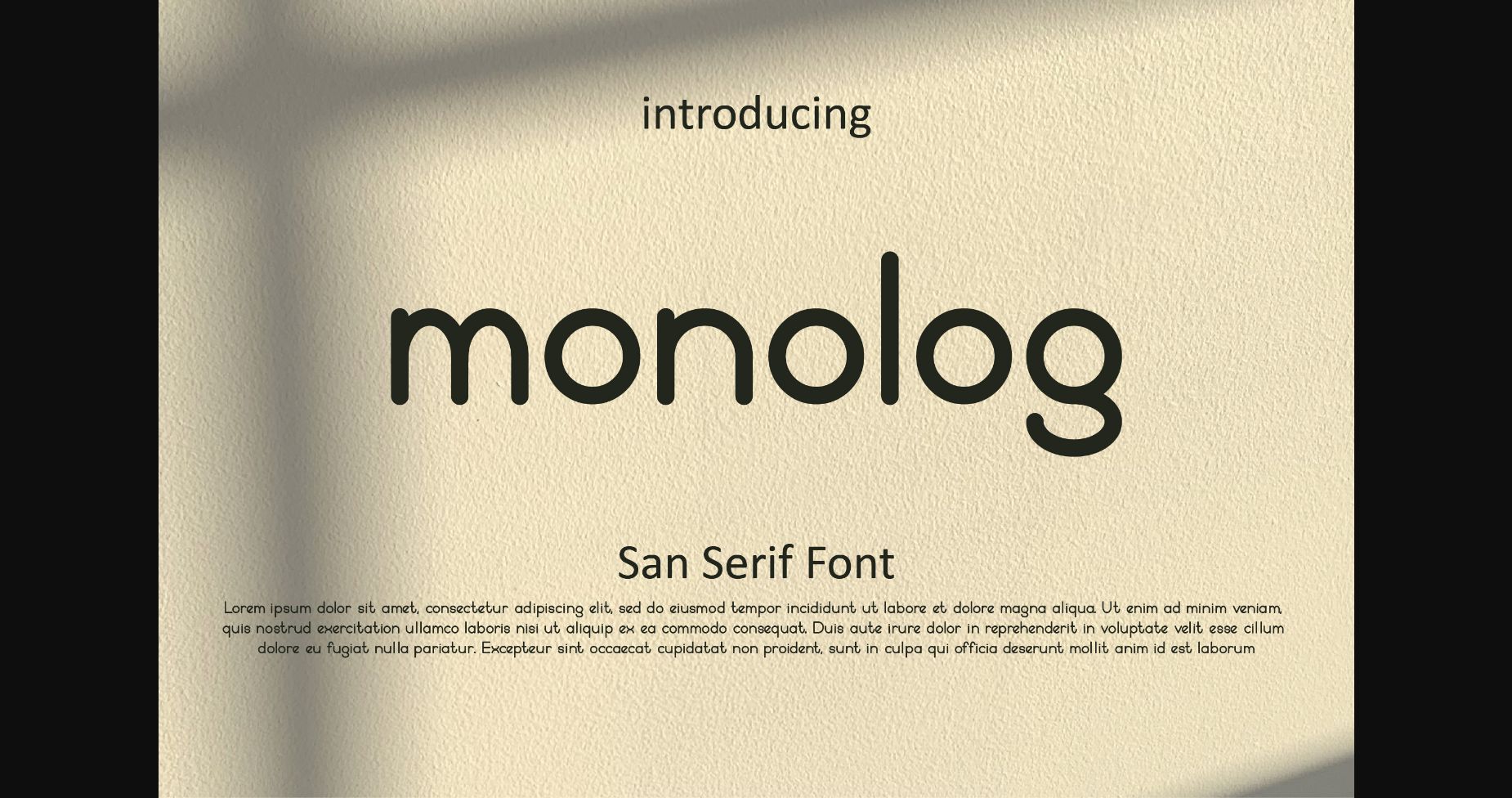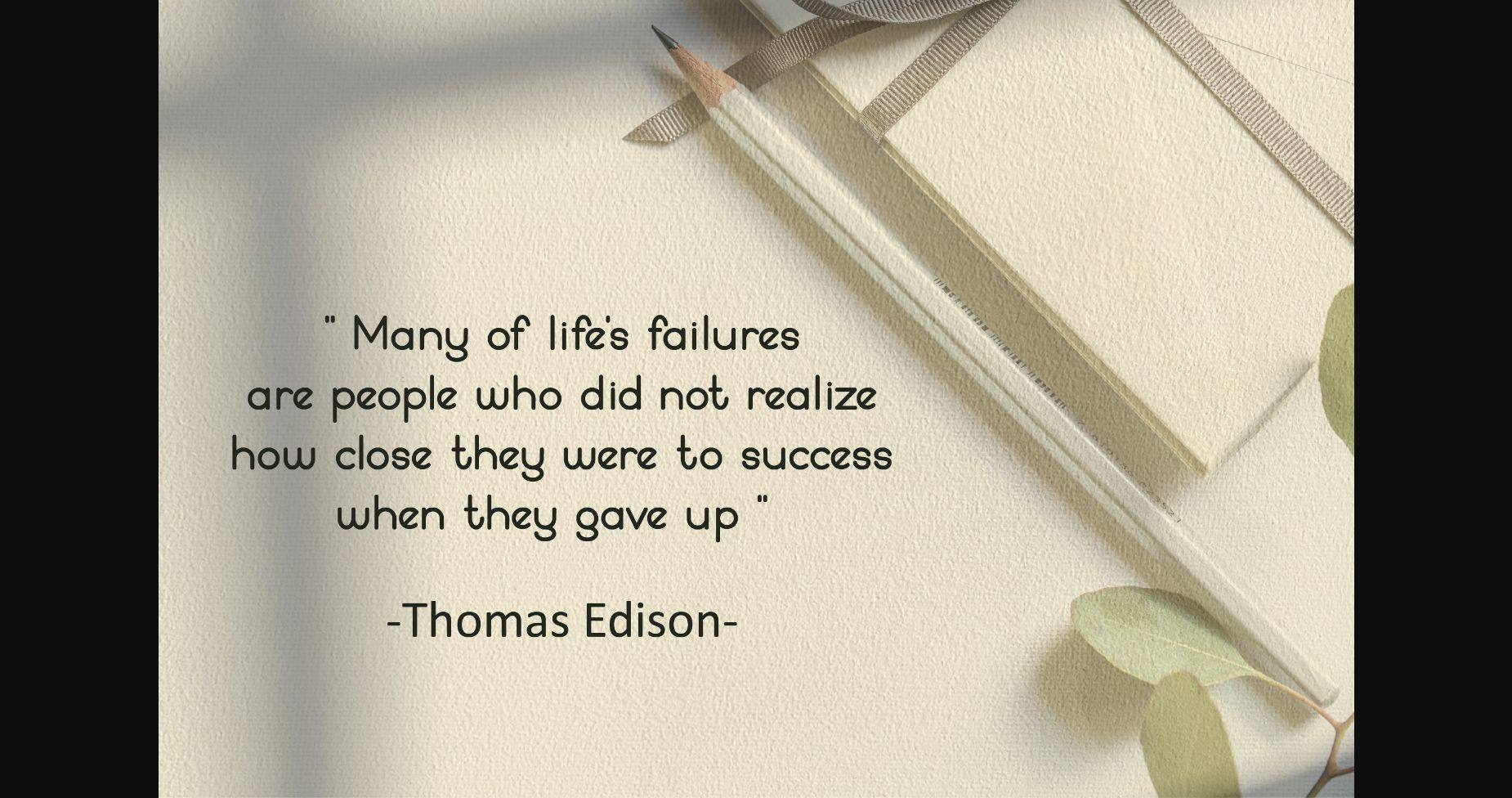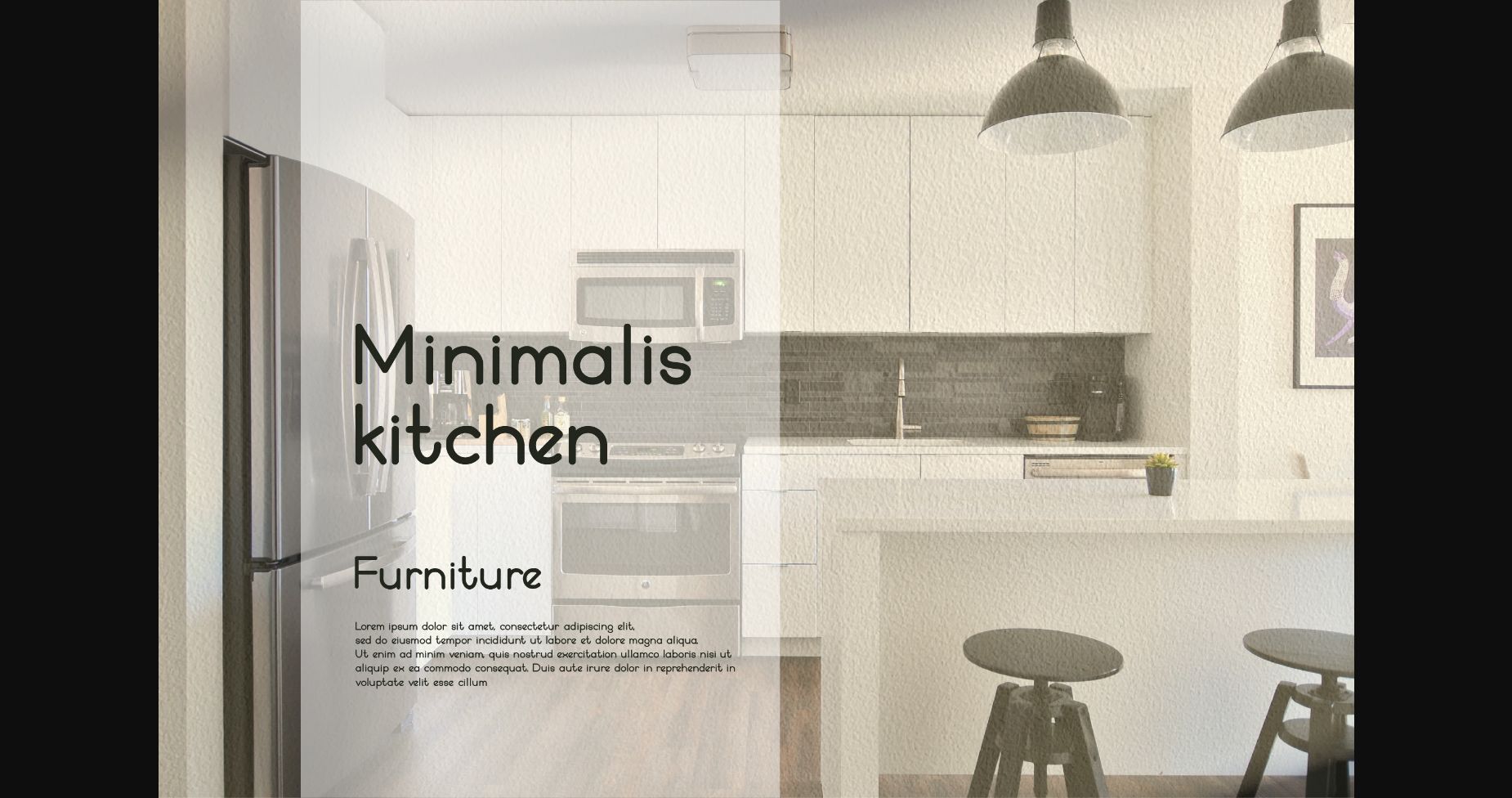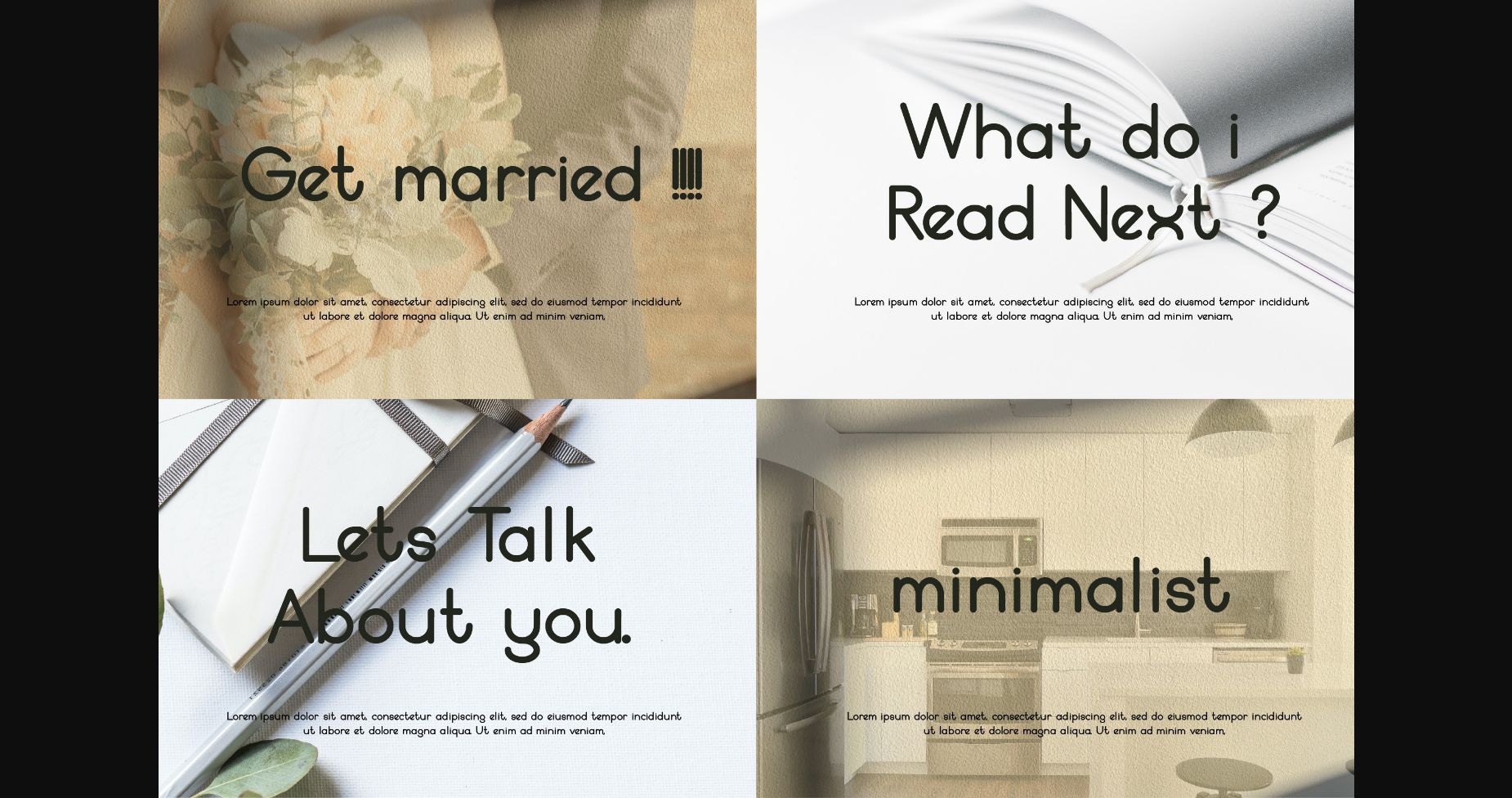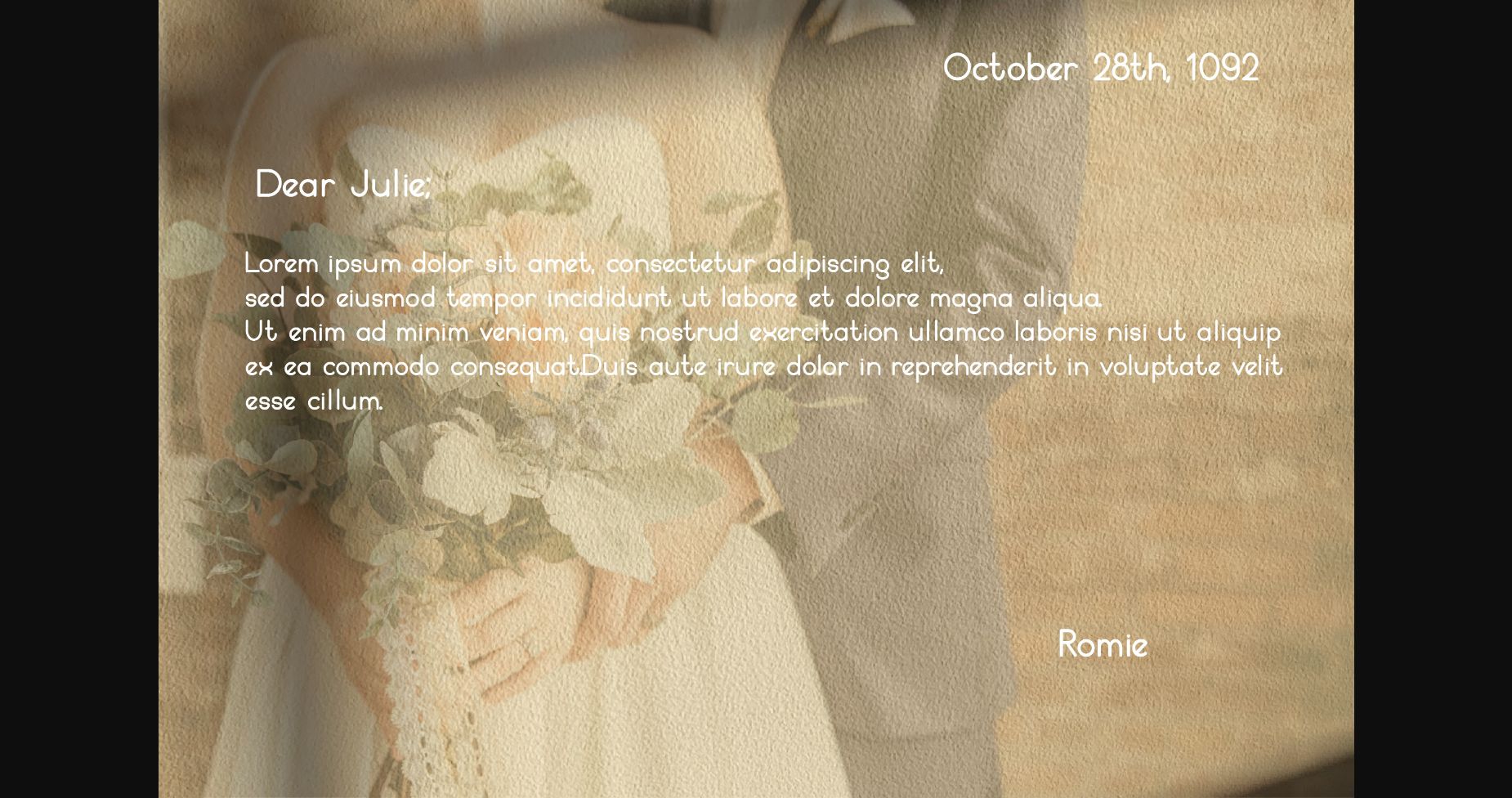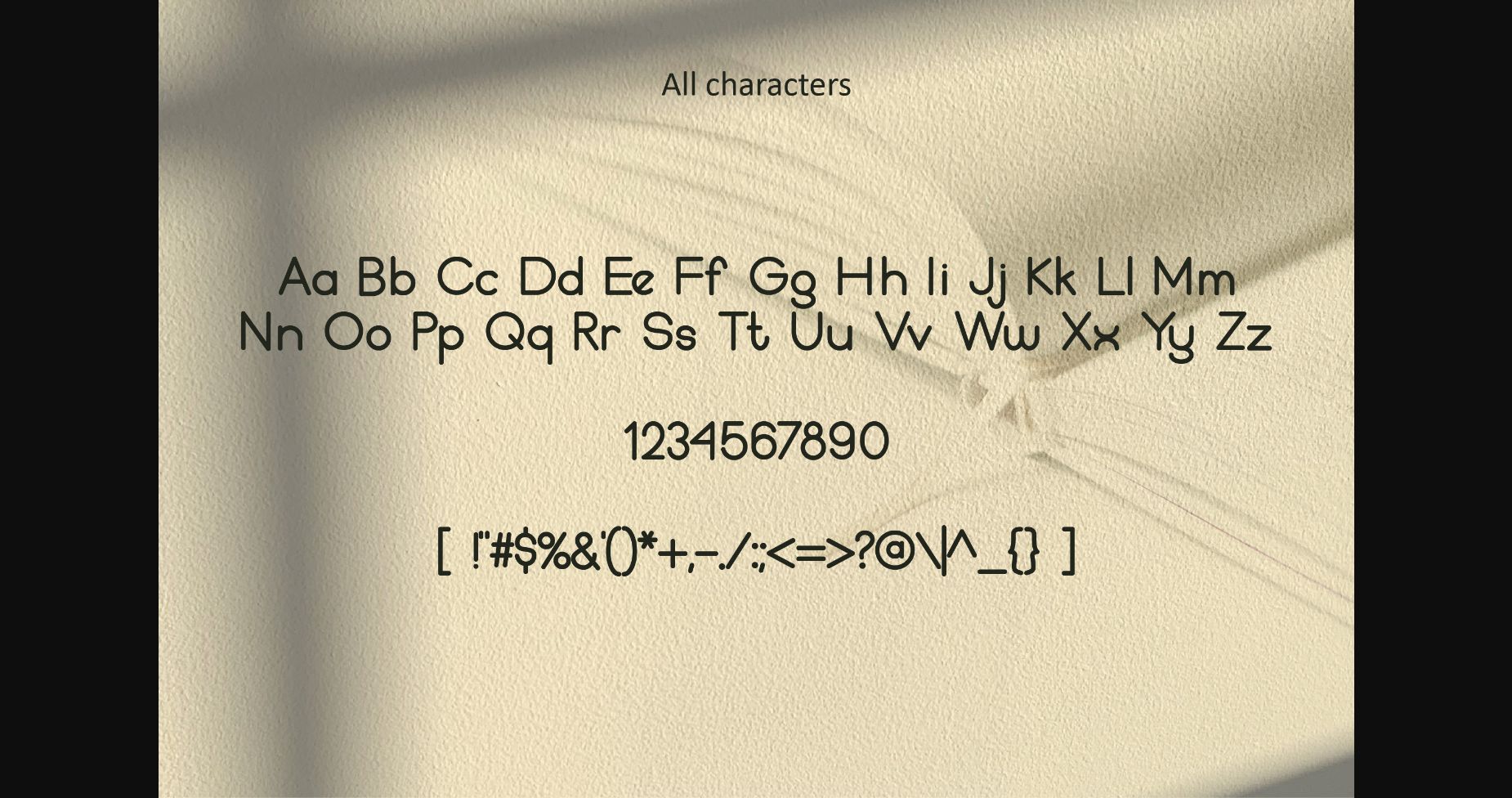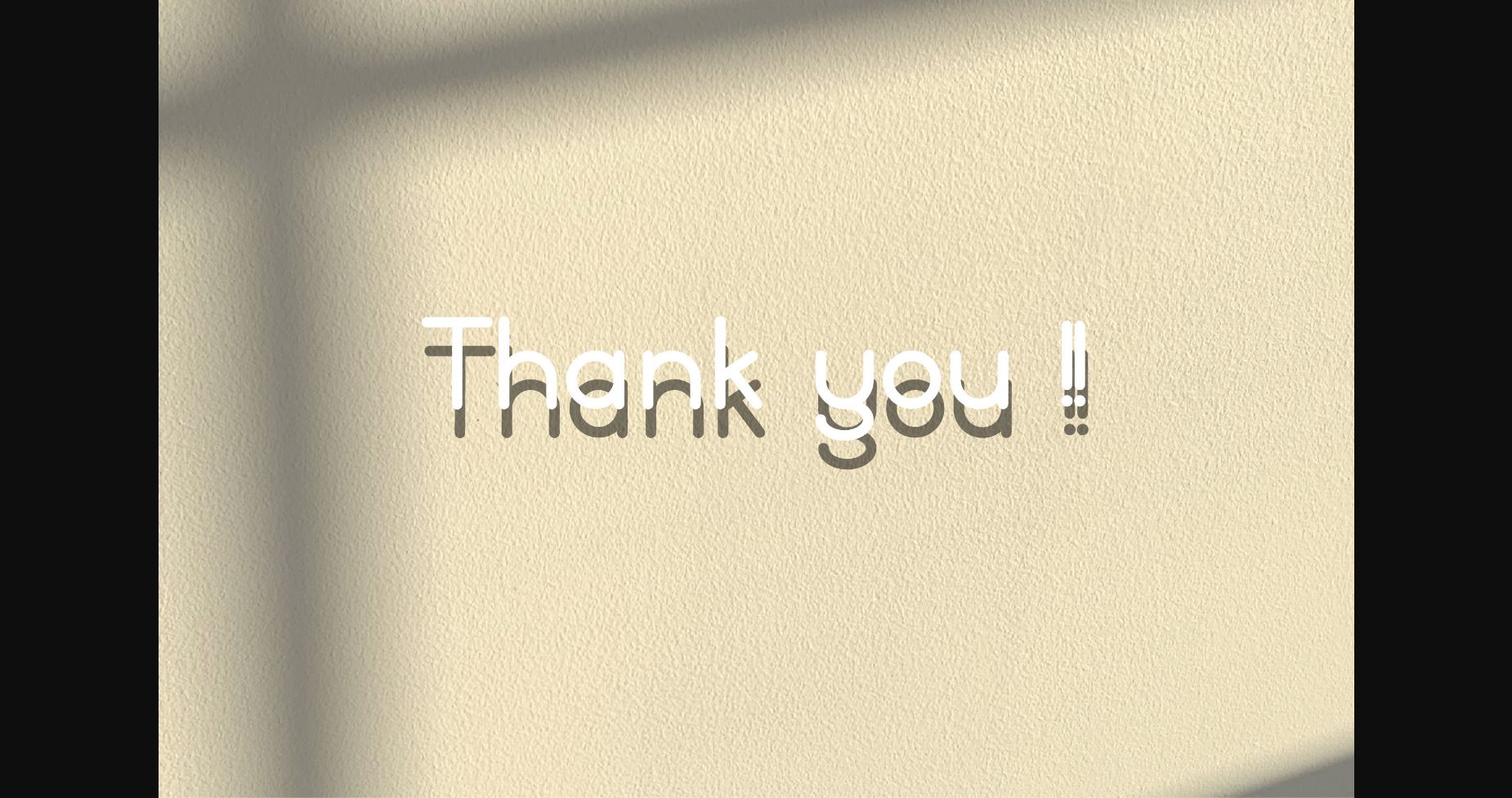
HomeSans Serif FontsMonolog Font Sans Serif Fonts Monolog Font FacebookXPinterestWhatsApp 1 of 9 ... Monolog Font Poster 2... Monolog Font Poster 3... Monolog Font Poster 4... Monolog Font Poster 5... Monolog Font Poster 6... Monolog Font Poster 7... Monolog Font Poster 8... Monolog Font Poster 9... About Monolog Font Monolog is a modern, minimalist sans-serif font. Perfect for designing websites, branding materials, marketing campaigns, and weddings, this font is sure to make its way into your design toolset. DOWNLOAD NOW People also explored Dewas Font Joyful Heart Font Quinthero Font Montana Bright Font California Font Million Hopes Font Rukia Font Cuckoo Bird Font Energetica Font 360 0 TagsMonologMonolog Font Previous articleSigner FontNext articleAereo Font LEAVE A REPLY Cancel reply Comment: Please enter your comment! Name:* Please enter your name here Email:* You have entered an incorrect email address! Please enter your email address here Website: Save my name, email, and website in this browser for the next time I comment. Personal Use Free Maxwell Personal Use Free Read more about this font Roland Personal Use Free Read more about this font Dealerplate California Personal Use Free Read more about this font Rocketto Personal Use Free Read more about this font BLOG Fonts That Capture the Spirit of New York City New York City is more than just a place—it’s an experience, a rhythm, a visual language... Using Fonts in Digital Marketing: Tips to Strengthen Your Brand Identity Top 7 Google Fonts Alternatives for Faster and Privacy-Friendly Web Design (2025) How to Cut Any Font on Cricut: Convert a Font to SVG (Free)